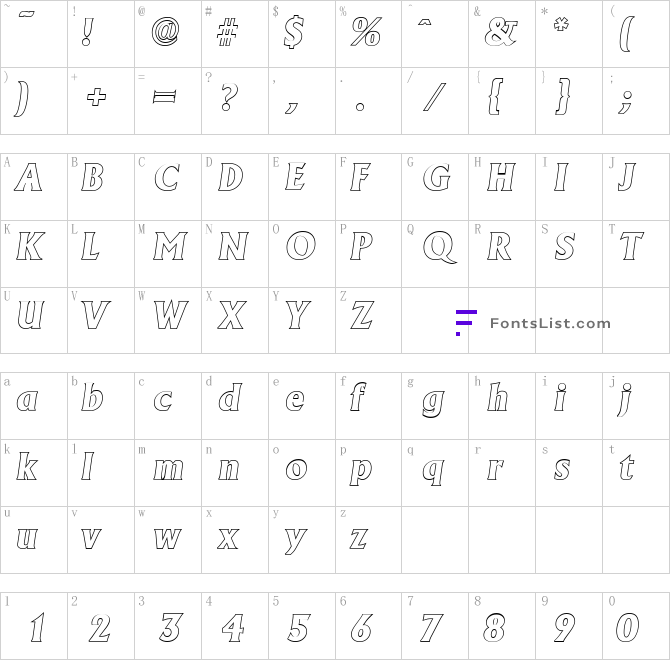
AdelonOutline-Xbold-Italic.ttf is a very beautiful artistic font, AdelonOutline-Xbold-Italic.ttf is widely used in the design and printing of various books and pictures,AdelonOutline-Xbold-Italic.ttf has a strong visual impact,AdelonOutline-Xbold-Italic.ttf is a commonly used font in newspapers, magazines and books, and is used in posters, e-commerce Poster design, store design, logo design, font design and other fields.AdelonOutline-Xbold-Italic.